Typefaces are the inflection of print. They aren’t the words, but how those words are said. Are they yelled or are they whispered? Are they obnoxious, stern, authoritative, or playful? It’s a simple enough idea, so why are most of us so bad at typefaces? I think it’s because while we’ve had every spoken moment of our lives to master inflection, most of us have only spent a few nervous moments selecting the right font in Word before blocking this elusive vocabulary from our minds…until the next time.
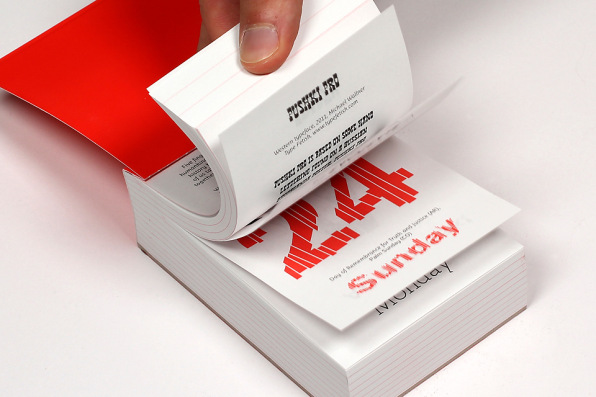
It’s just the sort of unsolvable human problem that needs a day calendar. That’s right, stand aside cute kittens, Magma’s Typodarium 2013 is a tear-off, daily calendar for discovering new fonts. On the front of each page, the date is clearly printed in that day’s font of choice. On the back, you can read about its origin, inspiration, and the URL where it can be acquired.
In other words, it shrinks that overwhelming list of fonts hiding in Word or Illustrator into a heavily curated list you can consume one bite at a time.
“Every year hundreds of typefaces get published, meanwhile all in all I guess there are more than 30,000 typefaces in the world. So, how to keep track of it?” asks art director Boris Kahl. “Every year we collect the–for us personally–the most important, most beautiful, and most wicked typefaces in Typodarium.”
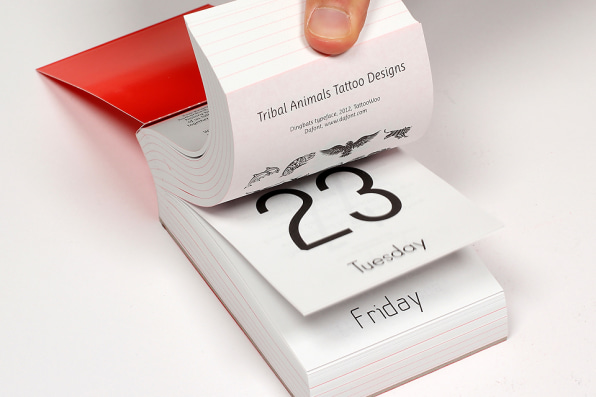
For this year’s Typodarium–the fifth in the series–366 fonts will be featured from 252 designers across 32 countries. The only requirements are that each fits within regularly accepted usability standards, and that all submissions are original/new. So while you won’t find a pocket guide to deploying Times New Roman vs. Courier, you will spot a few fun alternative fonts that haven’t been played to death.